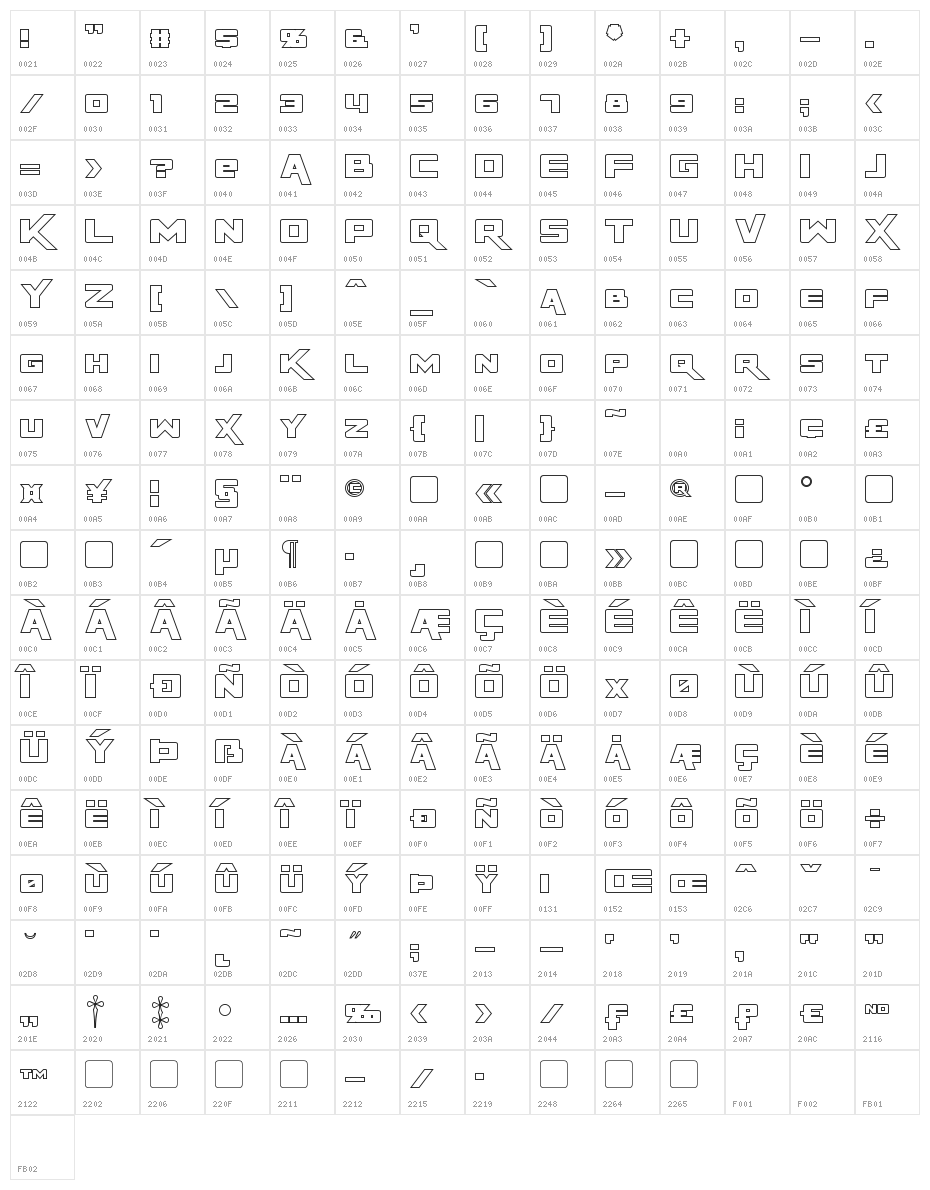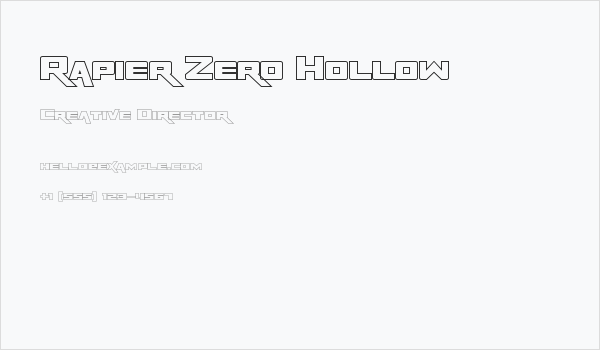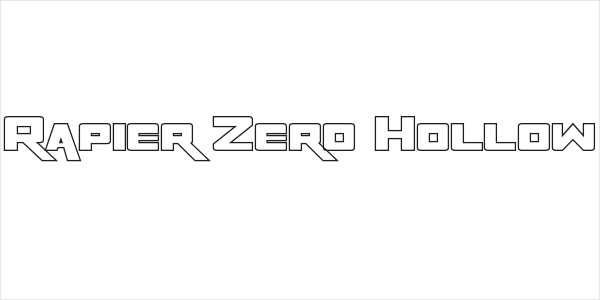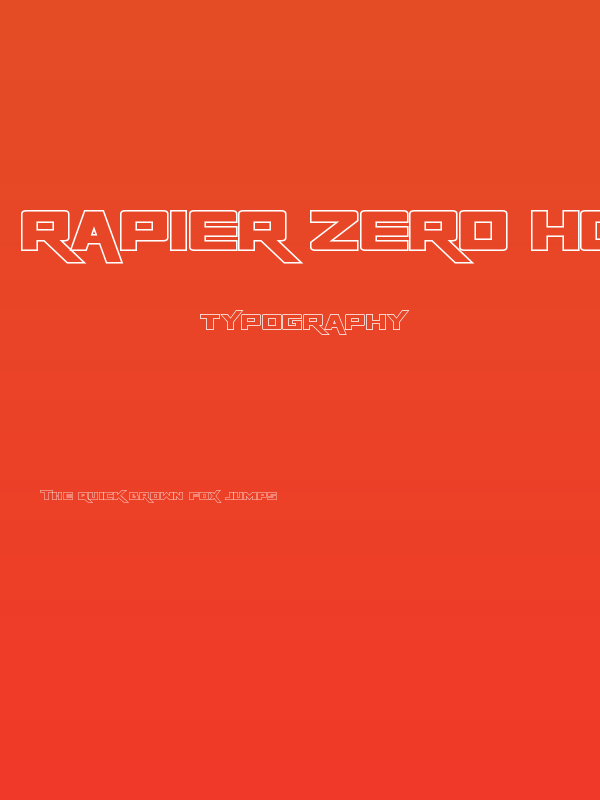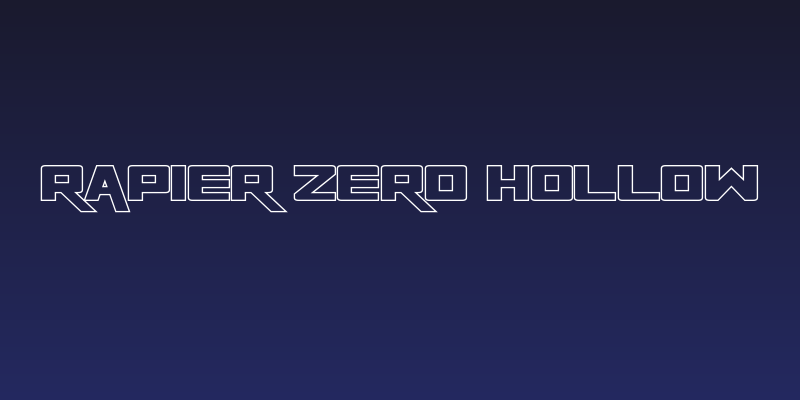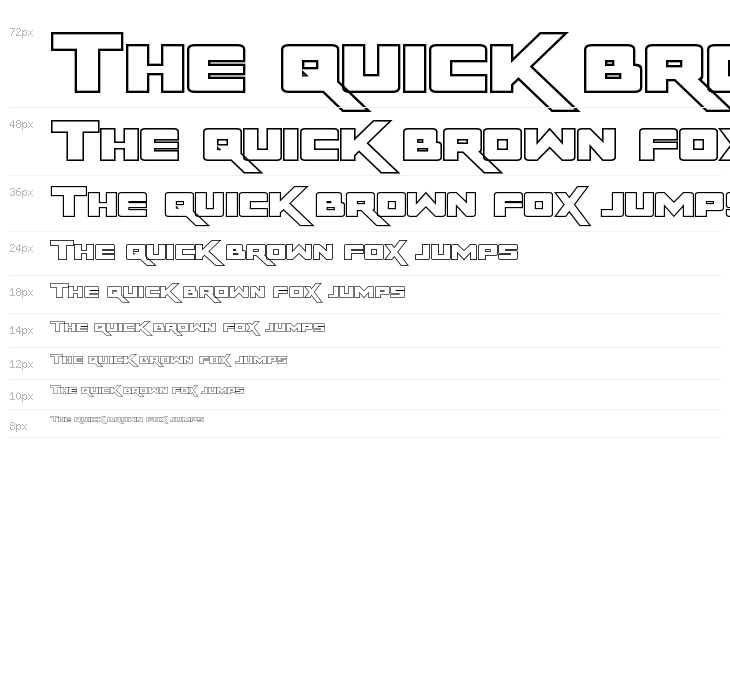
Rapier Zero Hollow Font
Rapier Zero Hollow Description
This font features a futuristic and angular design with hollow, outlined characters. Each letter and number is crafted with sharp, geometric edges, giving it a distinct, modern appearance. The uppercase and lowercase letters maintain a consistent style, emphasizing bold lines and a sense of motion. The numerals and special characters follow the same design principles, ensuring uniformity across all glyphs. This font's unique style makes it ideal for projects that require a cutting-edge, tech-inspired aesthetic. The hollow nature of the characters adds a layer of depth and complexity, making it stand out in various design contexts.
| Proposed Projects | Ideal for sci-fi themed designs, tech branding, video game titles, and futuristic posters. |